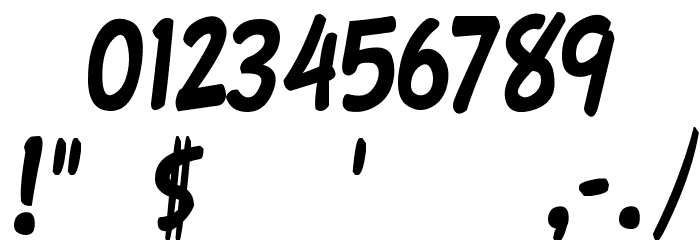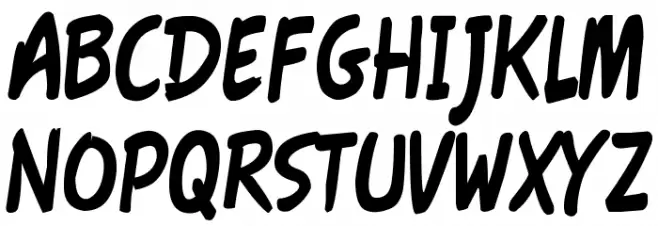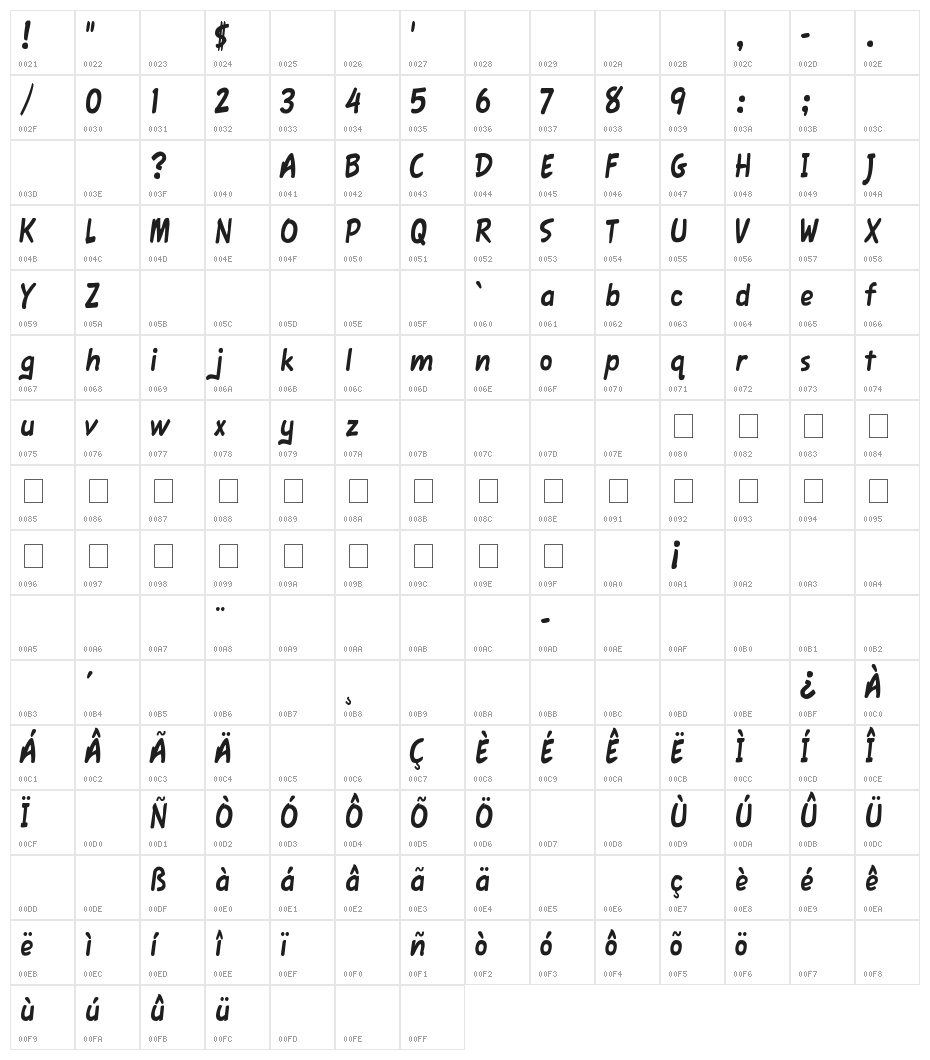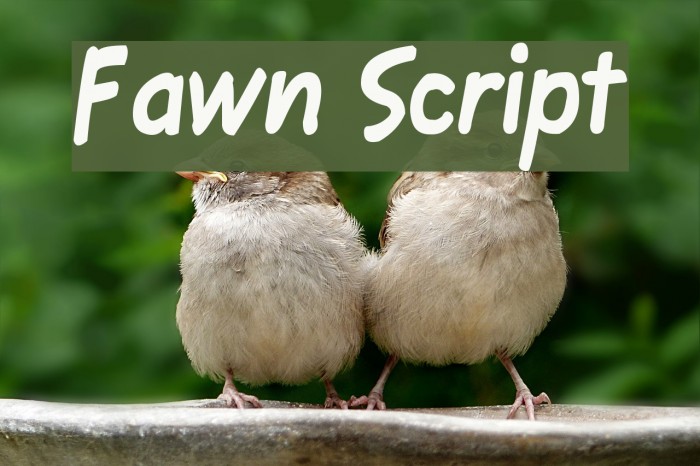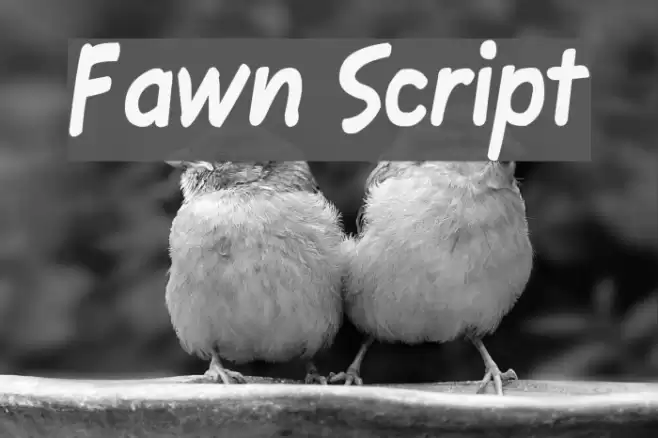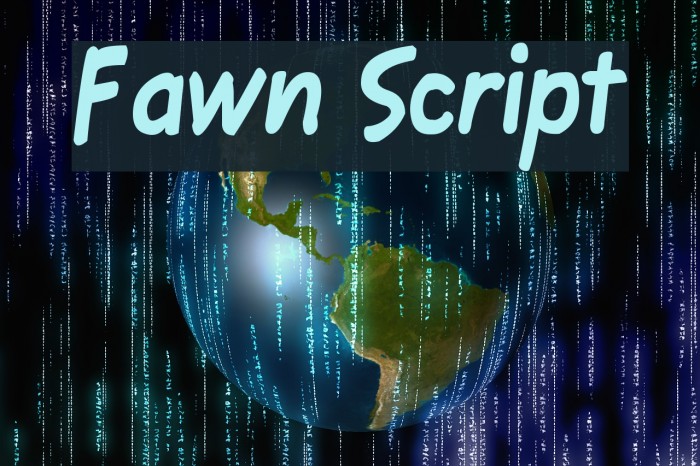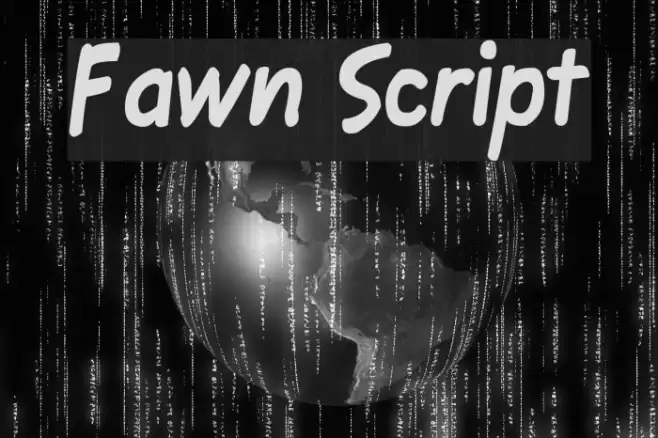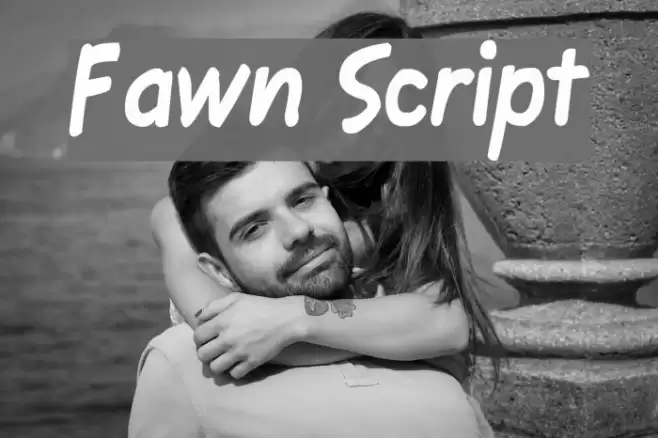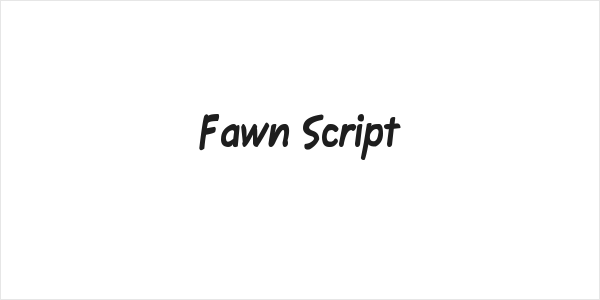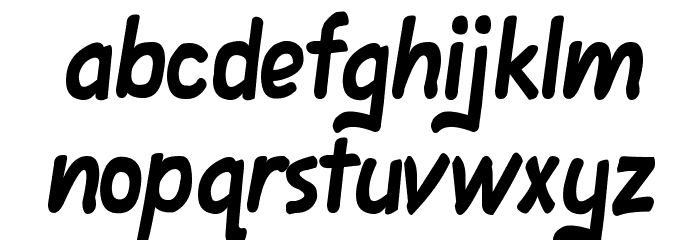
Fawn Script Font
Fawn Script Description
This font features a bold and playful script style, characterized by its smooth and flowing letterforms. The uppercase and lowercase letters maintain a consistent slant, giving it a dynamic and energetic appearance. The strokes are thick, providing a strong presence, while the rounded edges add a friendly and approachable feel. The numbers and special characters follow the same stylistic cues, ensuring uniformity across all elements. This font is well-suited for projects that require a casual yet impactful look.
Overall StylePlayful
Proposed ProjectsIdeal for branding, packaging, greeting cards, and social media graphics that aim to convey a fun and lively tone.